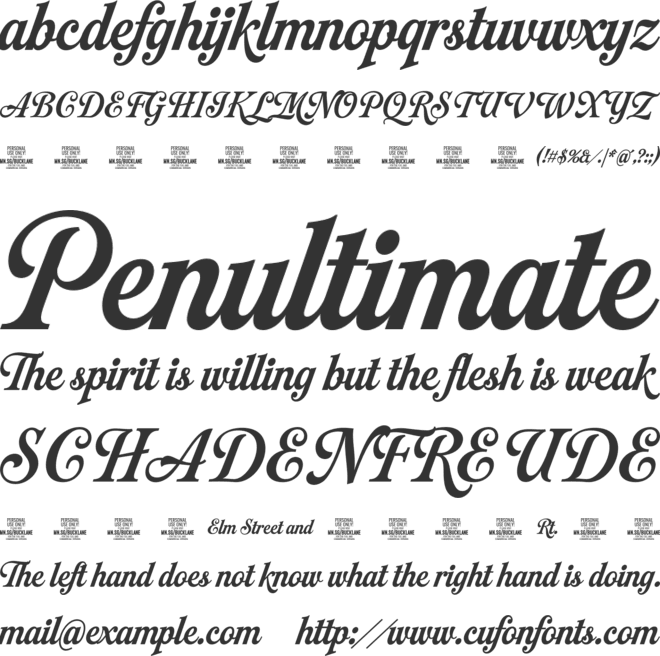
Bucklane Script PERSONAL USE Font
NOTE: This font is for PERSONAL USE ONLY!To purchase a commercial license, visit:https://www.mansgreback.com/product/bucklane-scriptBucklane Script is a bold calligraphic typeface with dramatic curves and vintage flair. With striking uppercase forms, it adds character to every word--whether it's carved onto a whiskey barrel or lighting up a marquee.For questions, please visit https://mansgreback.com/faq